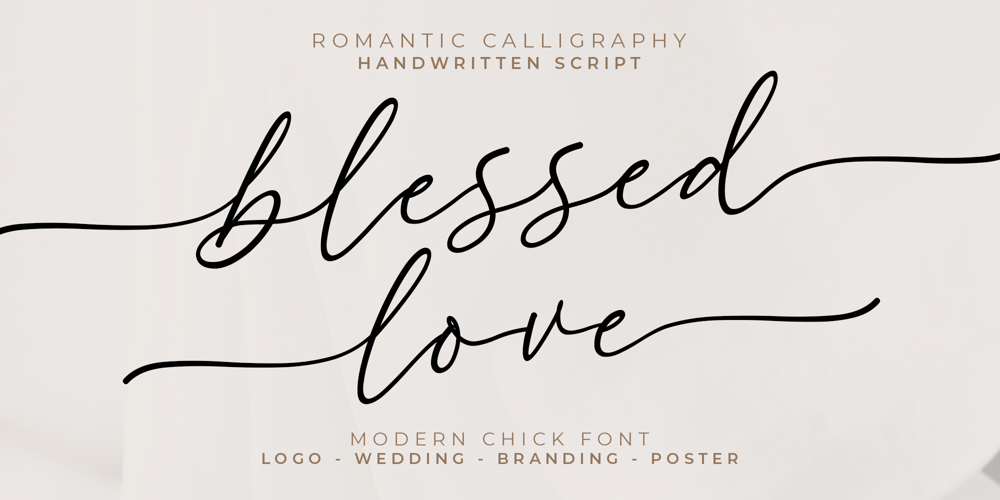
Blessed Love Font Family was designed by Muhammad Mujibulloh and published by MJB Letters. Blessed Love contains 1 styles and family package options. Blessed Love is an elegant script font featuring graceful letterforms and captivating swashes. With beginning and ending swashes, it adds sophistication and visual interest to designs. The ligature support ensures seamless connections between letters, creating a harmonious typographic appearance. Additionally, Blessed Love is multilingual, making it versatile for diverse projects, allowing you to communicate effectively in various languages. Elevate your designs with Blessed Love’s charm, elegance, and versatility.